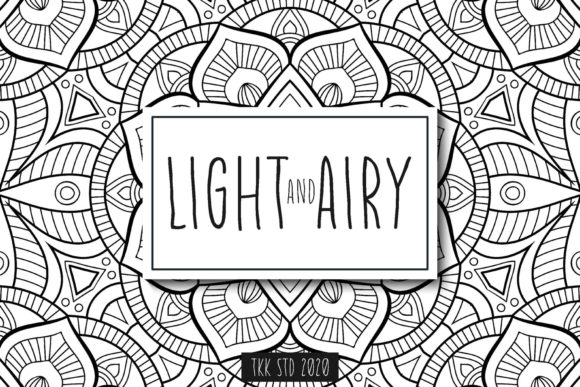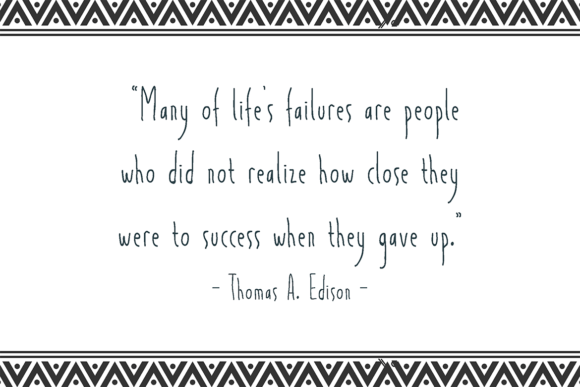
About Light and Airy Font
Light and Airy is a unique handwriting font with tall and slim characters and a delicate touch.
Dainty and joyful, this font will be ideal for writing wedding invitations, cards or any other design that may need a romantic, personalized touch!